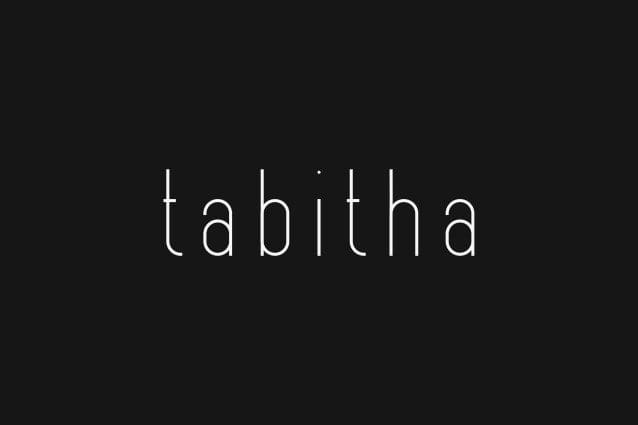
Tabitha Sans Serif Font
Tabitha Sans Serif Font is an elegant and versatile sans serif font that will make your typography truly unique! It will enchant every logo, branding, headline, or plain text!